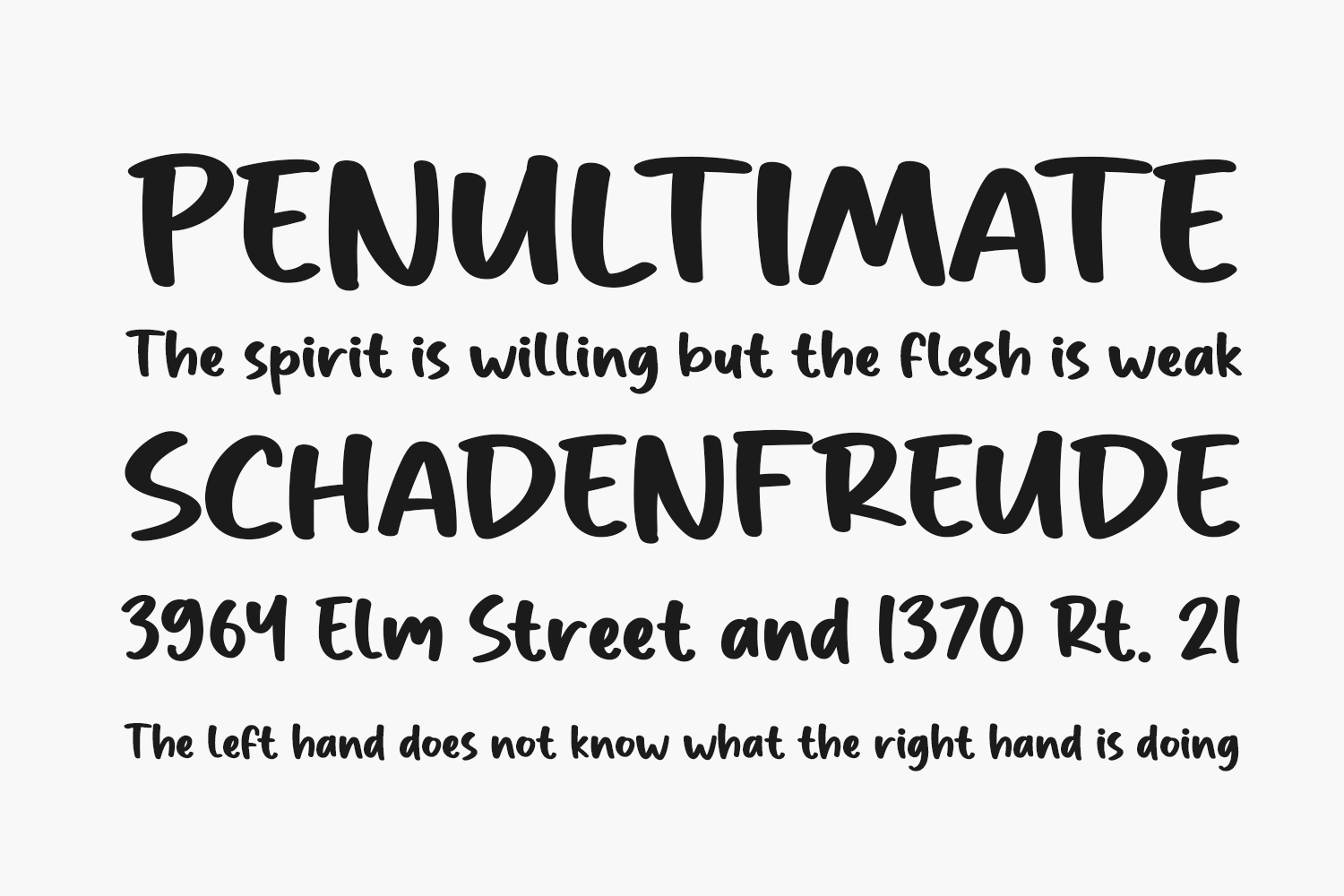
Meet Just Breathe Free Font, a gentle and elegantly handcrafted font with simple lettering. Ideal for chalkboard quotes and teaching materials, this font brings authenticity to your designs, infusing them with a personal and realistic touch. Perfectly capture the essence of your creative vision with Just Breathe. Please purchase the full version for commercial use.